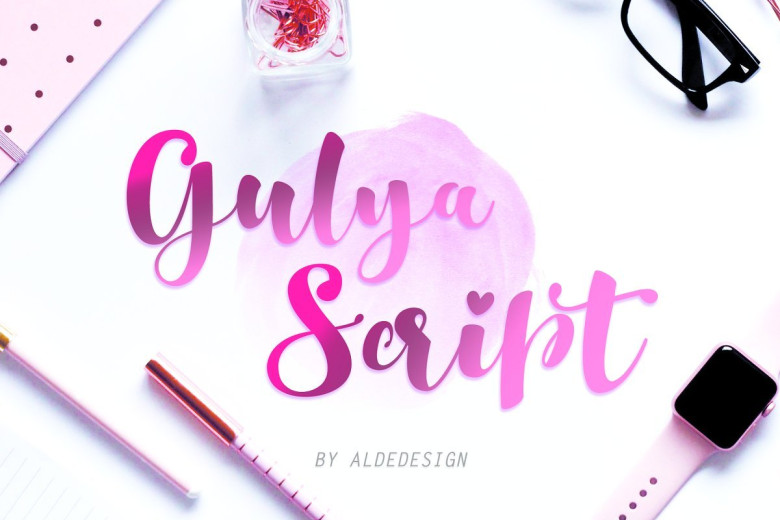
Gulya Script Font
An all caps hand written font perfect for vintage signs, wooden signs, tee designs, and more! Introducing Gulya Brush Font. Gulya – This font made with love to make your new year more blushing. Gulya suitable for tshirt design, photography, invitation, ID card, tattoo, poster, logo, title, branding and etc.